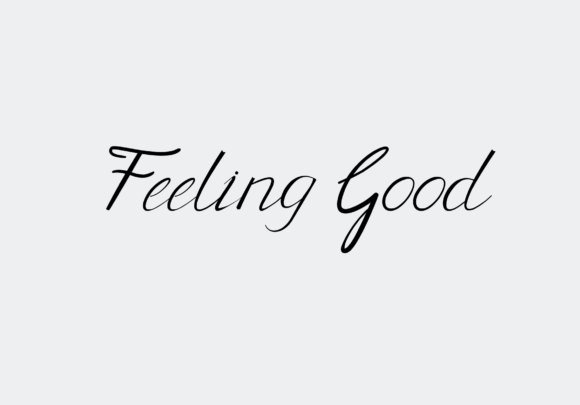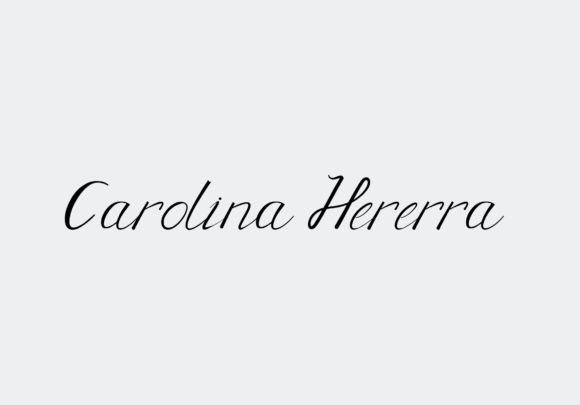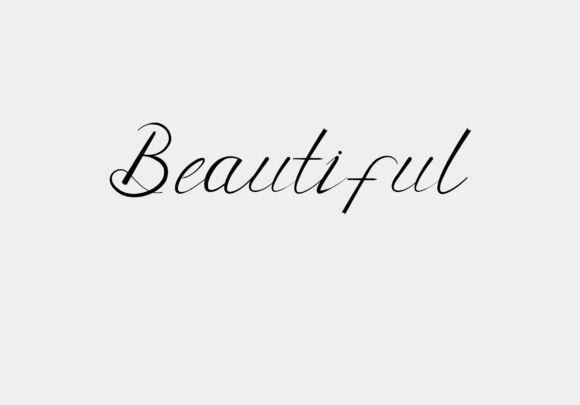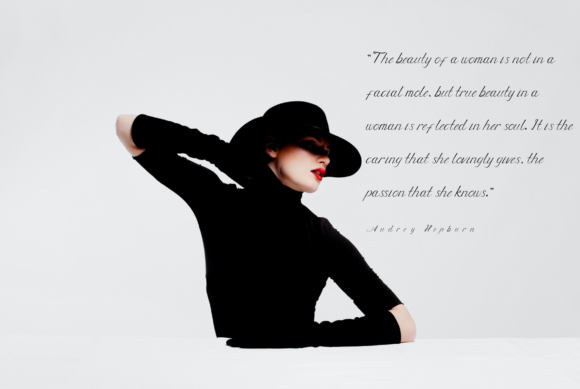
Discover the Elegance of Angelina Font: A Timeless Choice for Your Design Projects
Are you on the hunt for a font that exudes elegance, sophistication, and a touch of whimsy? Look no further than Angelina Font, a stunning handwritten typeface that is sure to capture your heart. With its flowing lines, delicate curves, and timeless charm, Angelina is the perfect addition to your design toolkit. In this article, we’ll dive into the world of Angelina Font, exploring its unique features, design versatility, and the endless possibilities it offers for crafters and designers alike.
The Unique Charm of Angelina Font
Angelina Font is described as a flowing handwritten font with an elegant touch, and for good reason. Its incredibly distinct style is characterized by smooth, cursive lines that dance across the page, evoking a sense of movement and fluidity. This beautiful font is perfect for designers and crafters who want to add a touch of sophistication and whimsy to their projects. Whether you’re working on a logo, branding materials, or a craft project, Angelina Font is sure to make a lasting impression.
Key Features of Angelina Font
- Elegant and Refined: Angelina Font boasts an undeniable air of sophistication, making it perfect for high-end branding, luxury packaging, and elegant stationery.
- Flowing Lines: The font’s smooth, cursive lines create a sense of movement and fluidity, adding a touch of dynamism to any design.
- Timeless Style: Angelina Font’s classic charm ensures that it will never go out of style, making it a valuable addition to your design library.
- Versatile: From logos and branding materials to craft projects and digital designs, Angelina Font can be used in a wide range of applications.
Design Possibilities with Angelina Font
With Angelina Font, the design possibilities are endless! Here are just a few ideas to get you started:
- Logos and Branding: Use Angelina Font to create a sophisticated logo or branding materials that exude elegance and refinement.
- Craft Projects: Add a touch of whimsy and charm to your craft projects, such as handmade cards, scrapbooking, and DIY decorations.
- Digital Designs: Use Angelina Font in digital designs, such as social media graphics, blog headers, and website elements.
- Stationery and Invitations: Create beautiful stationery, invitations, and greeting cards with Angelina Font’s elegant and refined style.
Tips for Using Angelina Font
To get the most out of Angelina Font, here are a few tips to keep in mind:
- Pair with Contrasting Fonts: Pair Angelina Font with a contrasting font to create visual interest and add depth to your design.
- Experiment with Colors: Try out different colors and textures to add an extra layer of dimension to your design.
- Play with Size and Scale: Experiment with different sizes and scales to create visual hierarchy and emphasize key elements.
In conclusion, Angelina Font is a beautiful and elegant handwritten font that is sure to capture your heart. With its flowing lines, delicate curves, and timeless charm, it’s the perfect addition to your design toolkit. Whether you’re a designer, crafter, or DIY enthusiast, Angelina Font offers endless possibilities for creating spectacular designs that exude elegance and sophistication. So why wait? Fall in love with Angelina Font and take your designs to the next level!